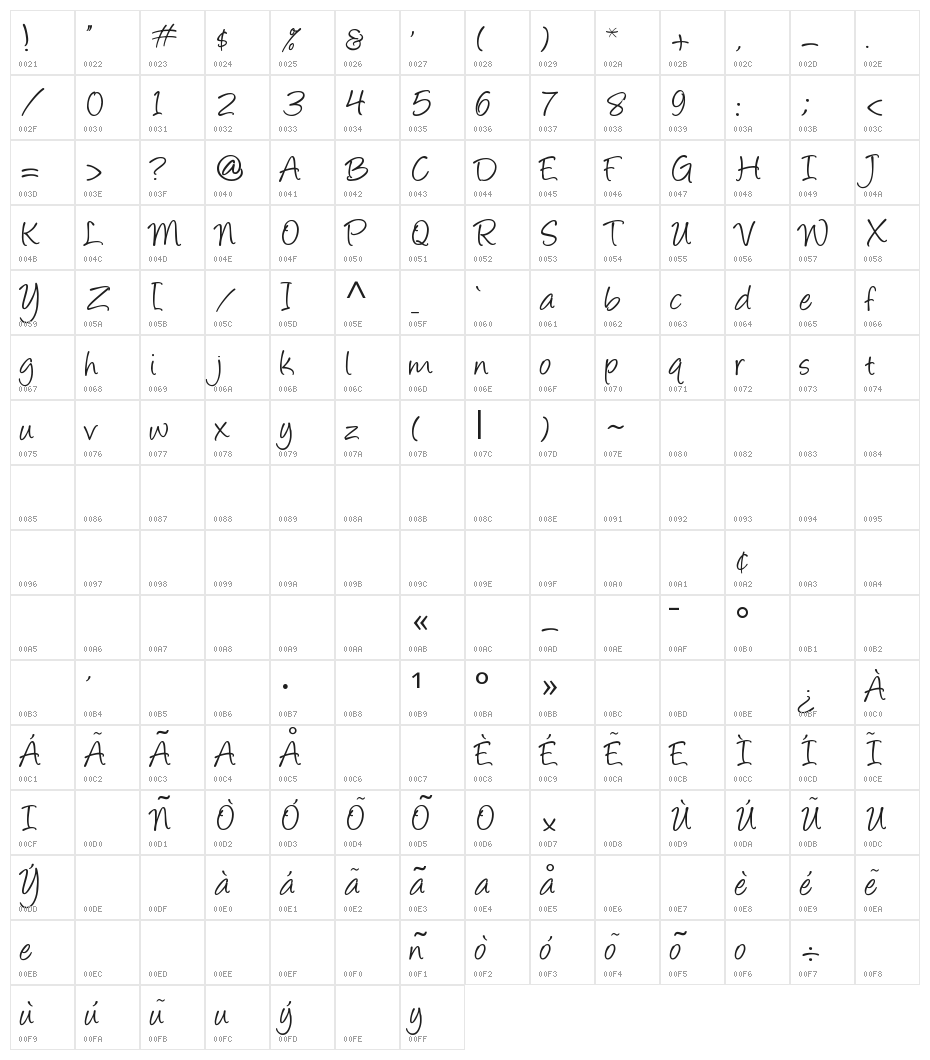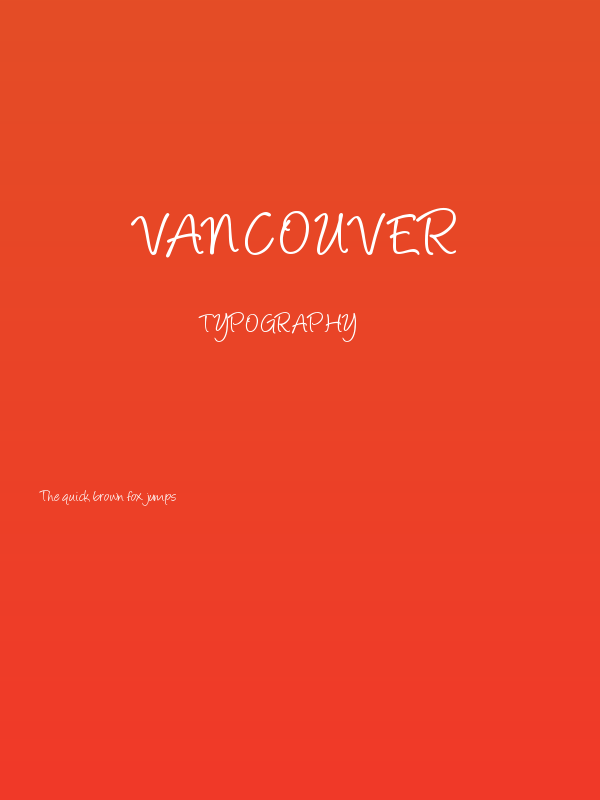
Vancouver Font
| 全体的なスタイル | Casual |
| 用途 | Headlines, Invitations, Personal Branding |
| おすすめプロジェクト | Ideal for greeting cards, invitations, personal branding, and creative projects that require a friendly and informal touch. |